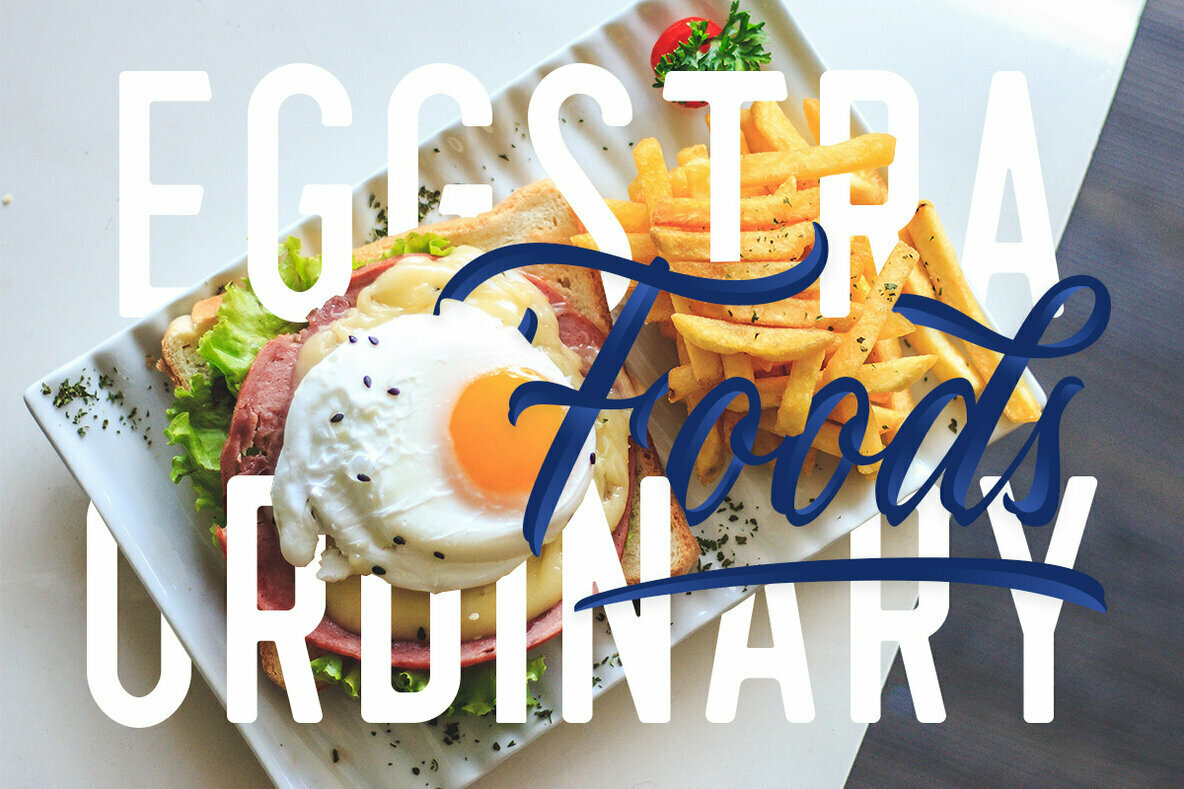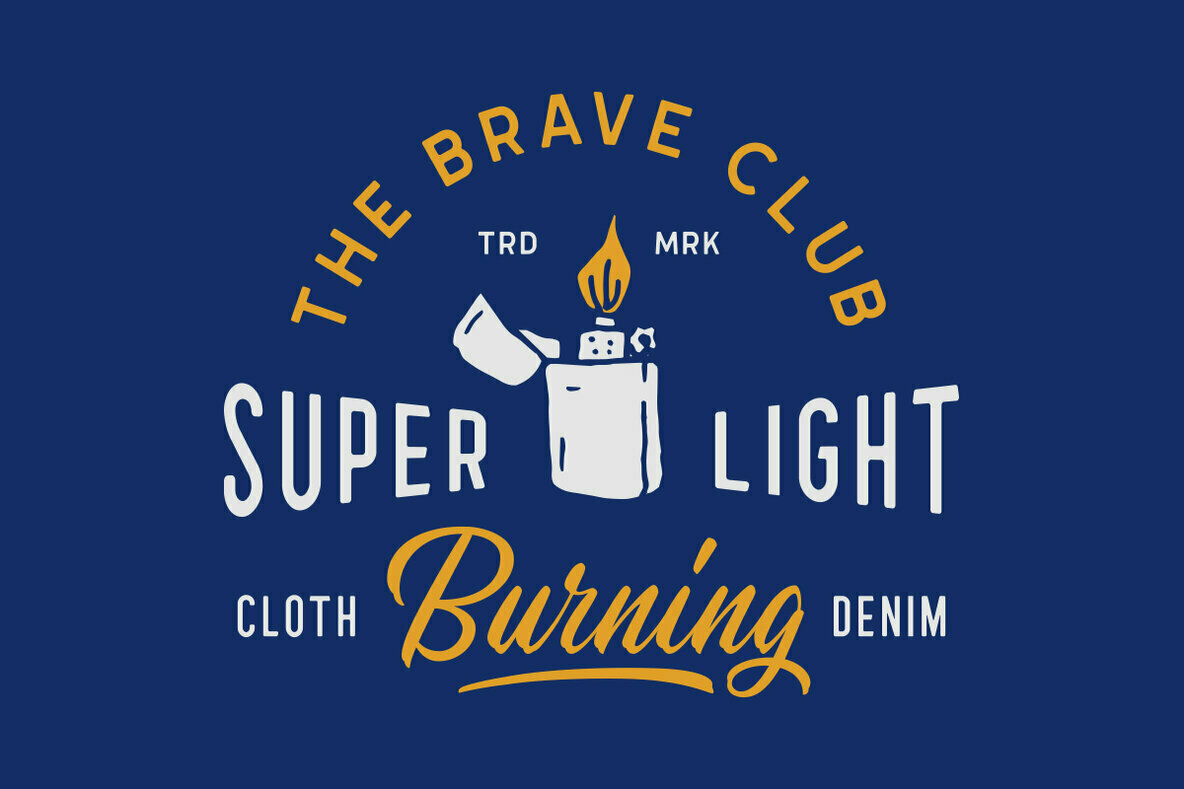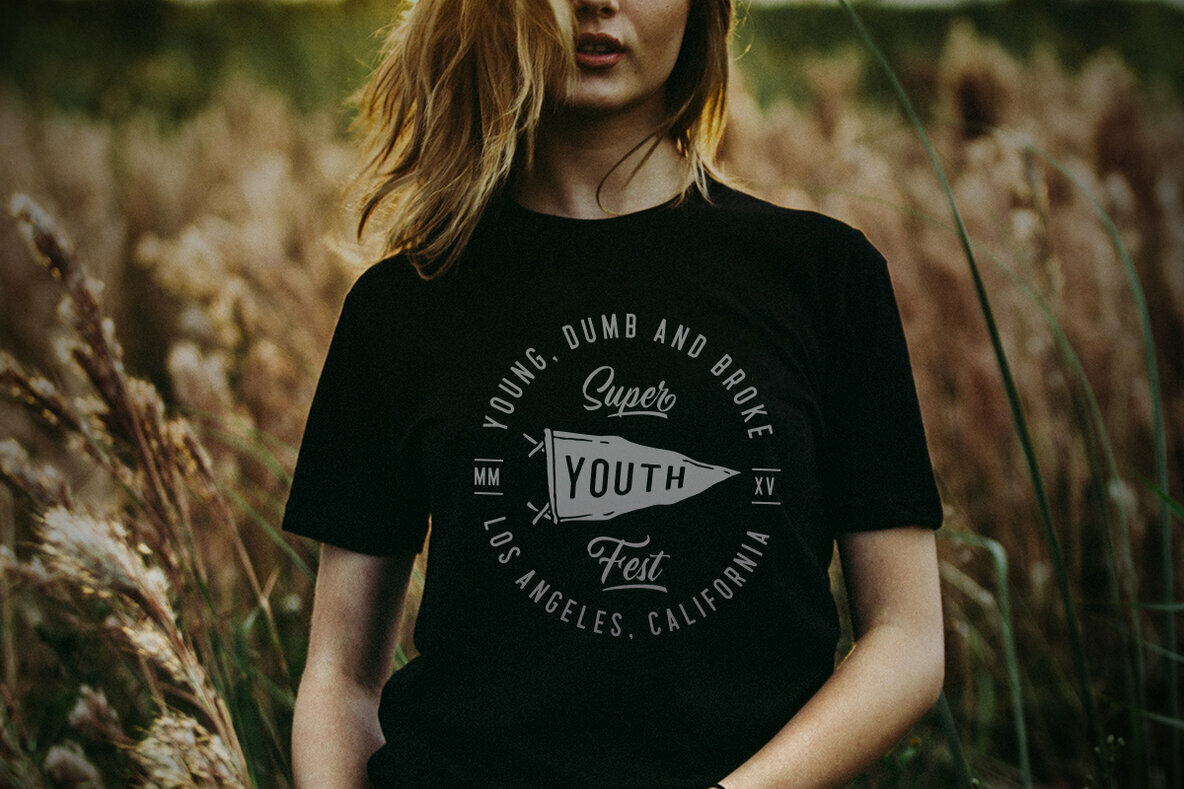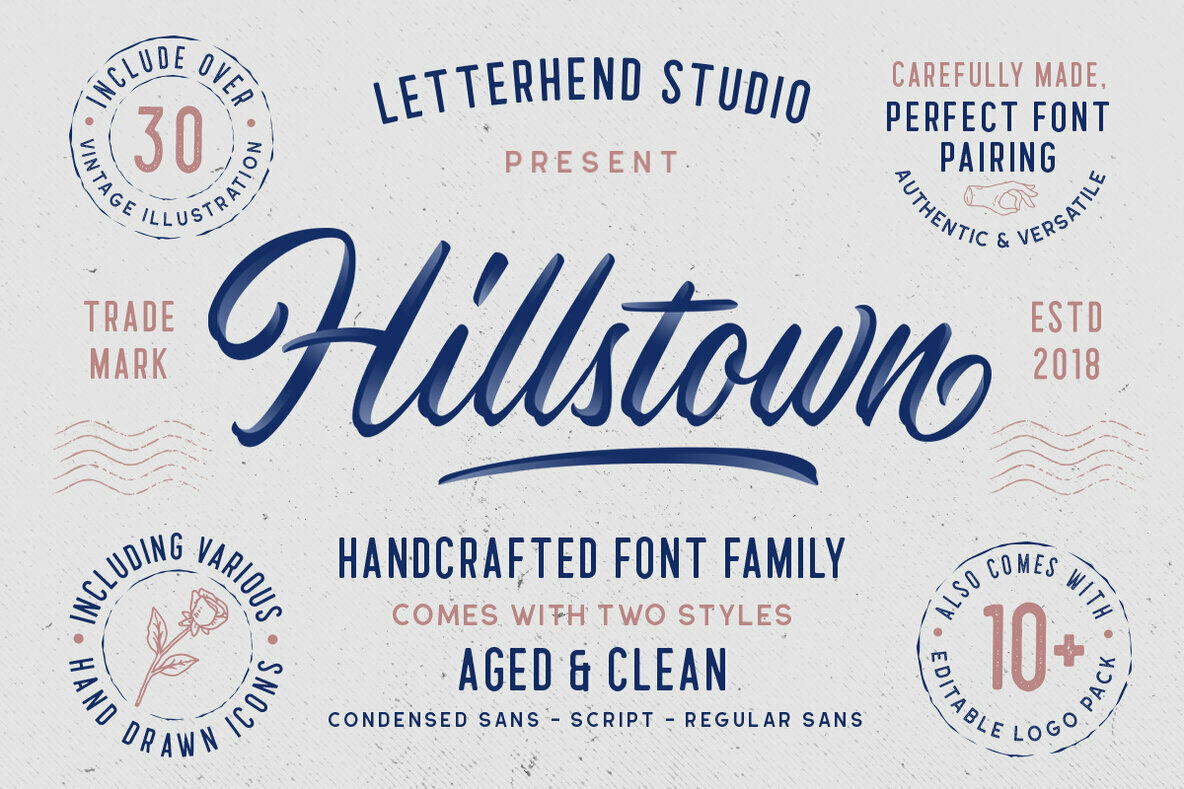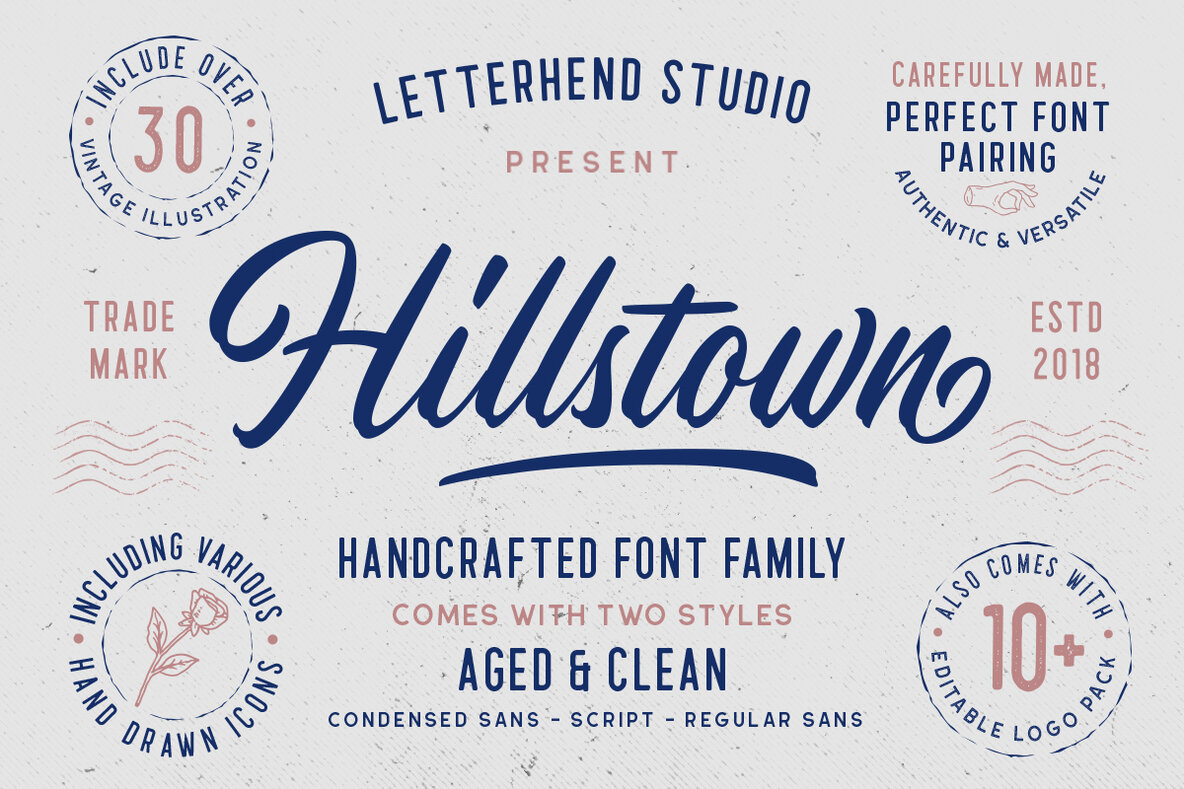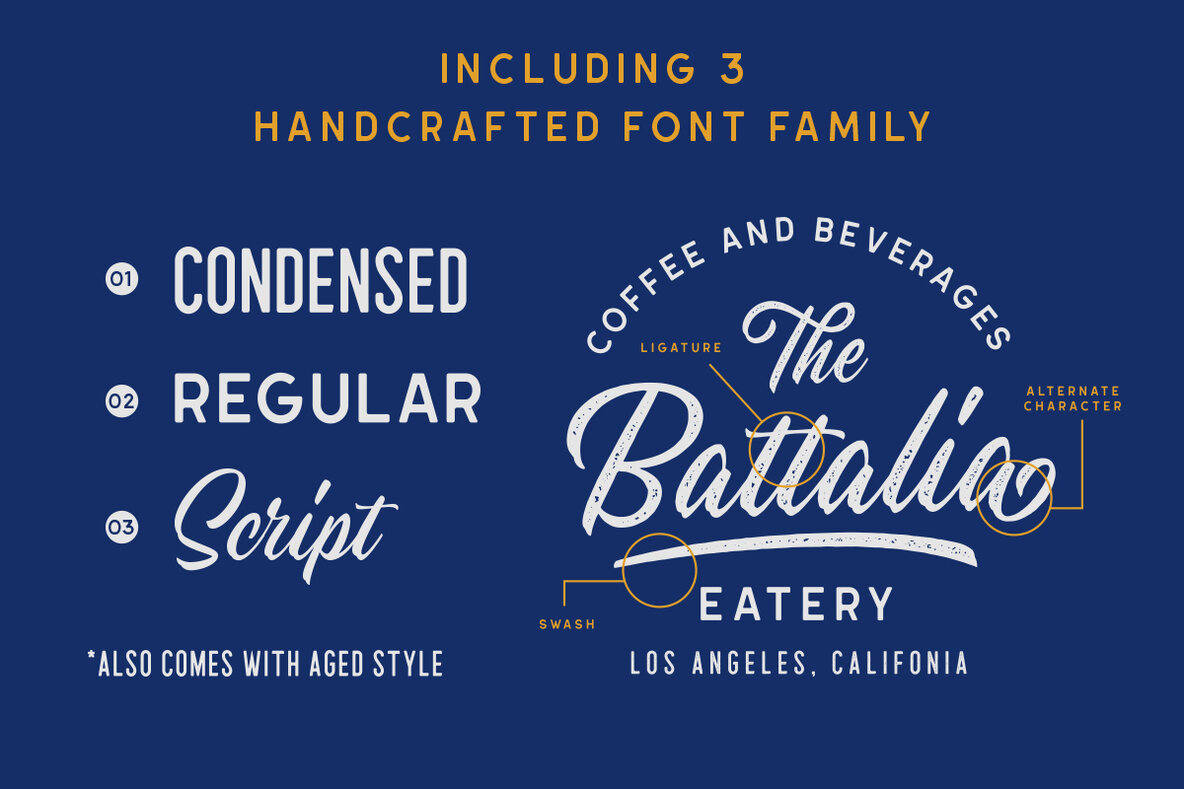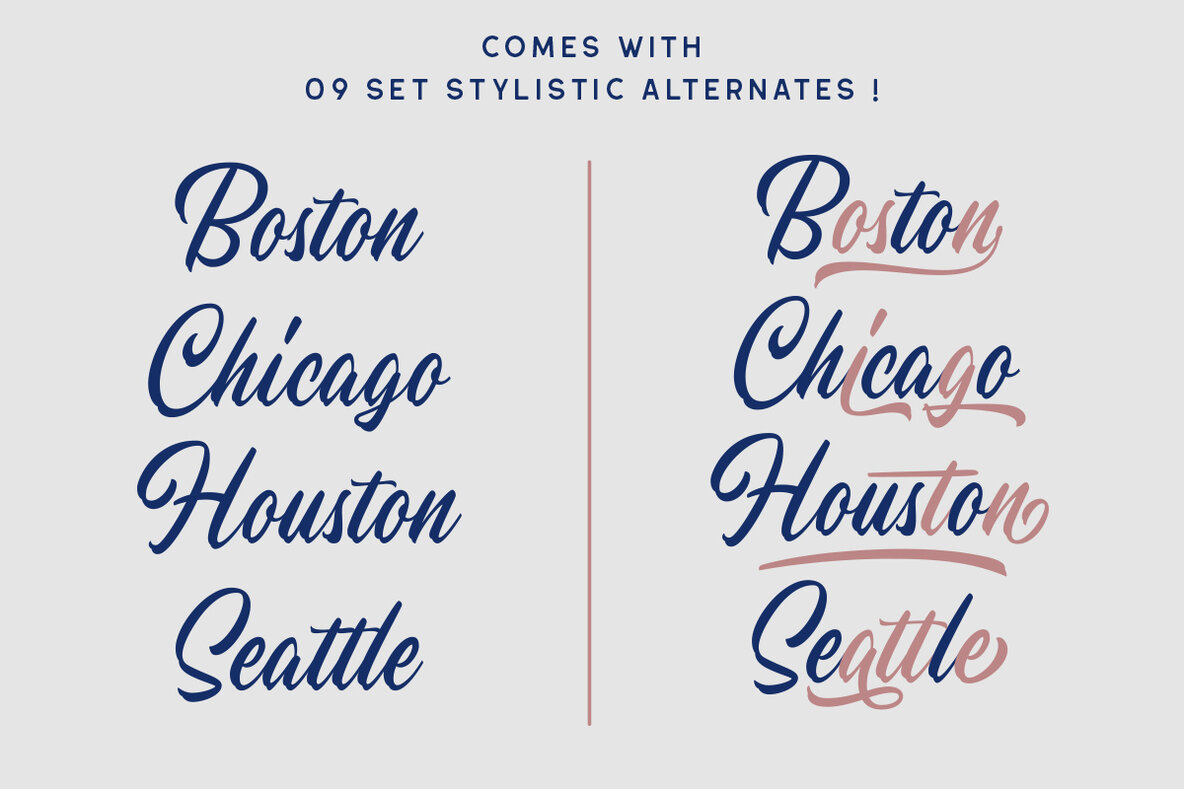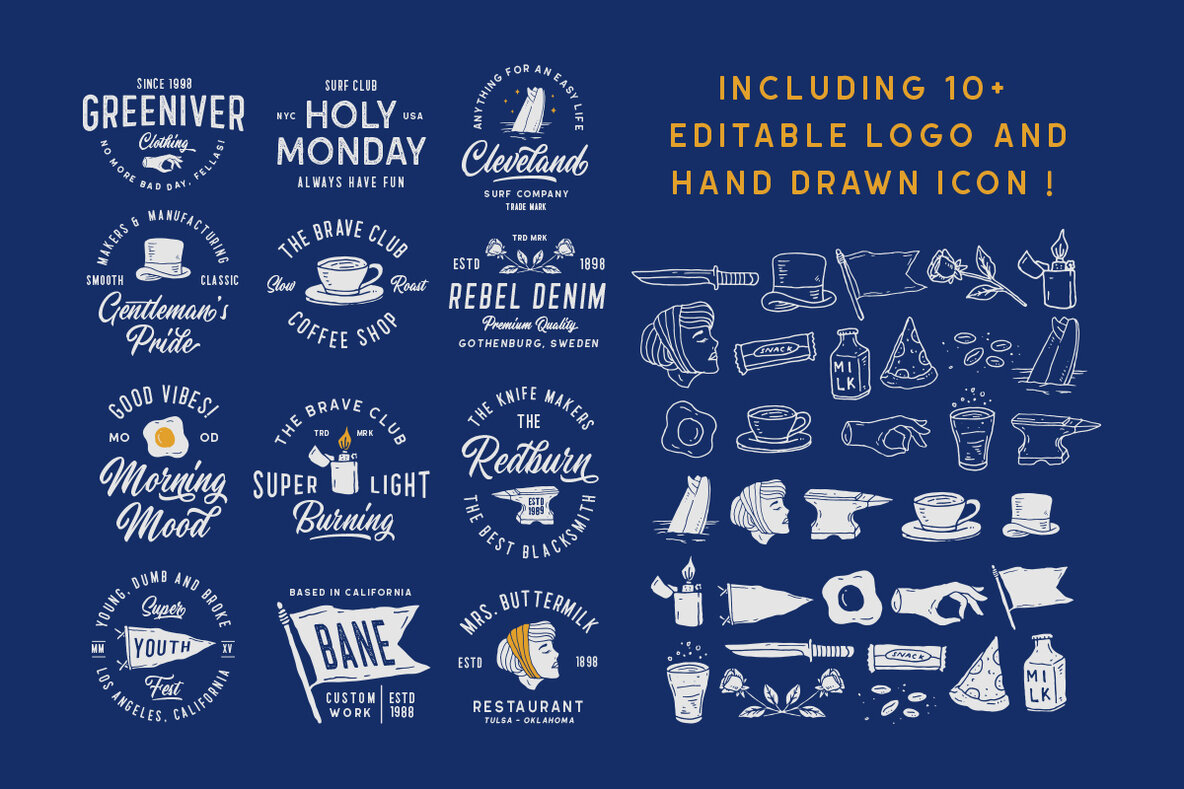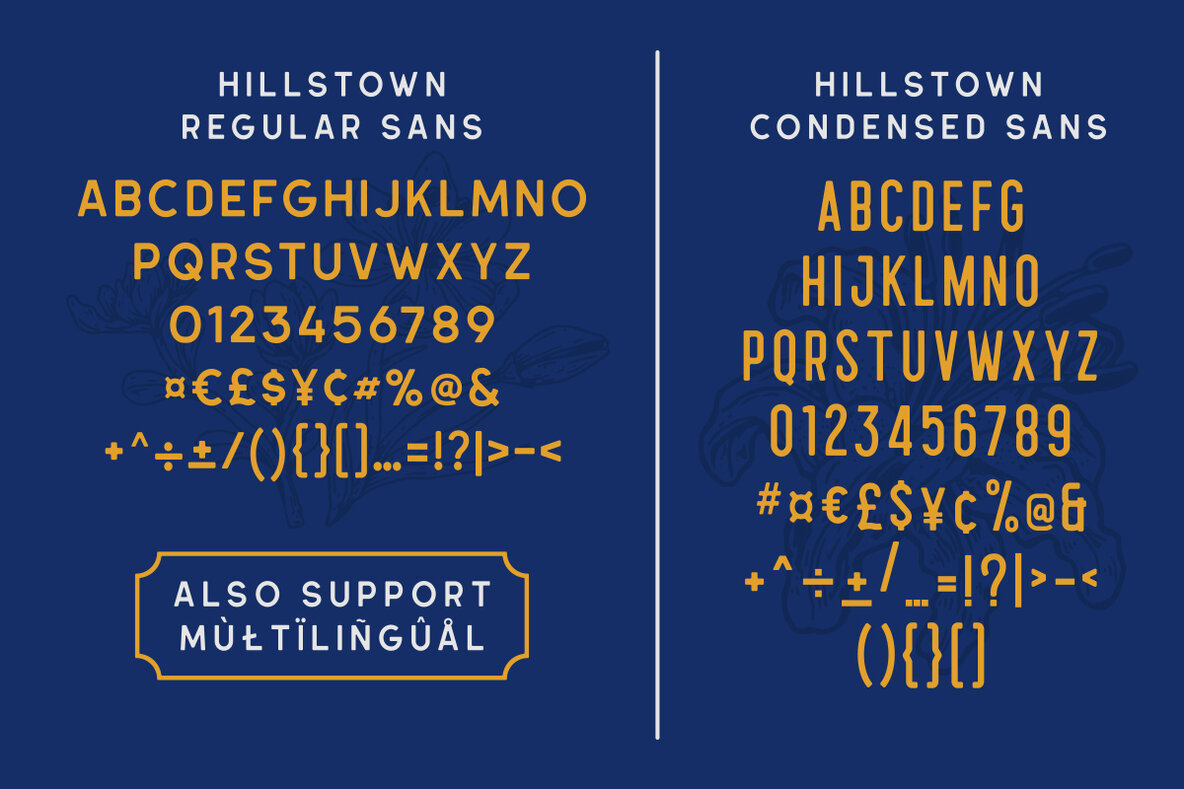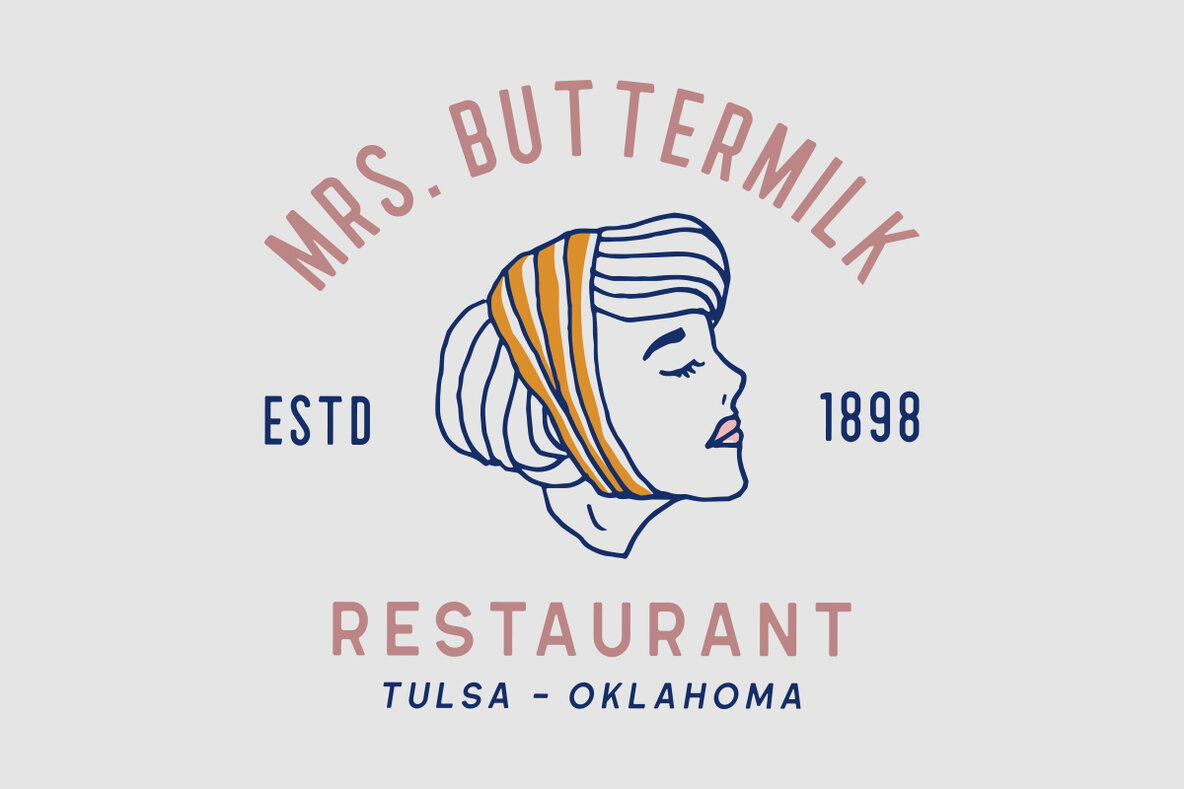
Hillstown Font Collection
Hillstown Font Collection and Extras (6 fonts)
The Hillstown Font Collection offers an exceptional blend of three distinct styles: script, sans, and condensed sans. Each font comes in both clean and aged variations, providing a versatile palette for diverse design needs. This collection is ideal for projects requiring a classic touch, such as logotypes, apparel, branding, packaging, and advertising. The abundant features of Hillstown enhance its versatile appeal, making it a compelling choice for modern design. With support for multilingual use and PUA encoding already in place, it is ready to tackle global projects.Hillstown Font Collection: Classic Versatility in Typography